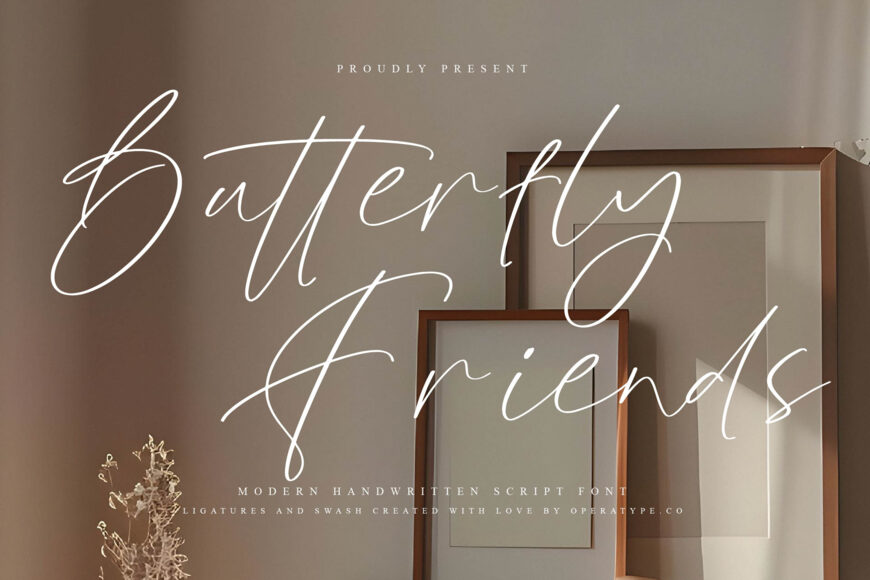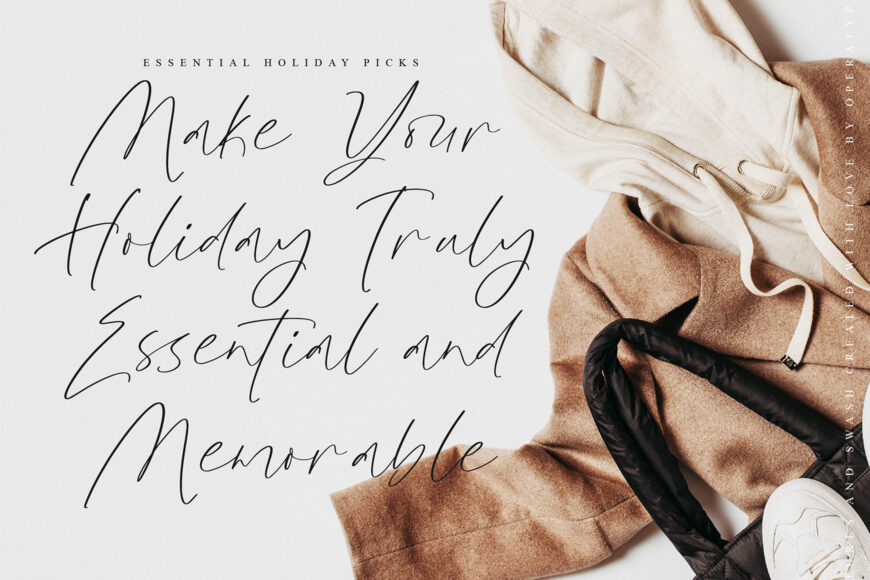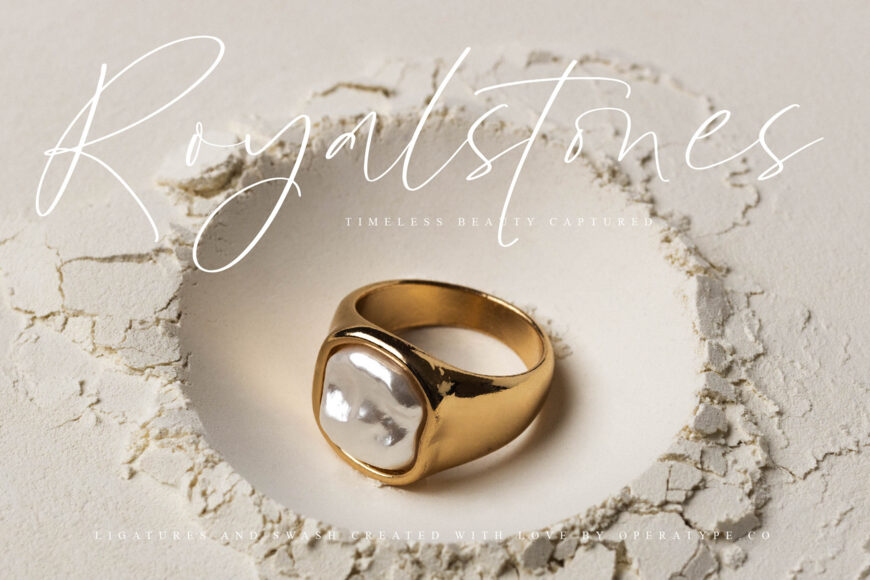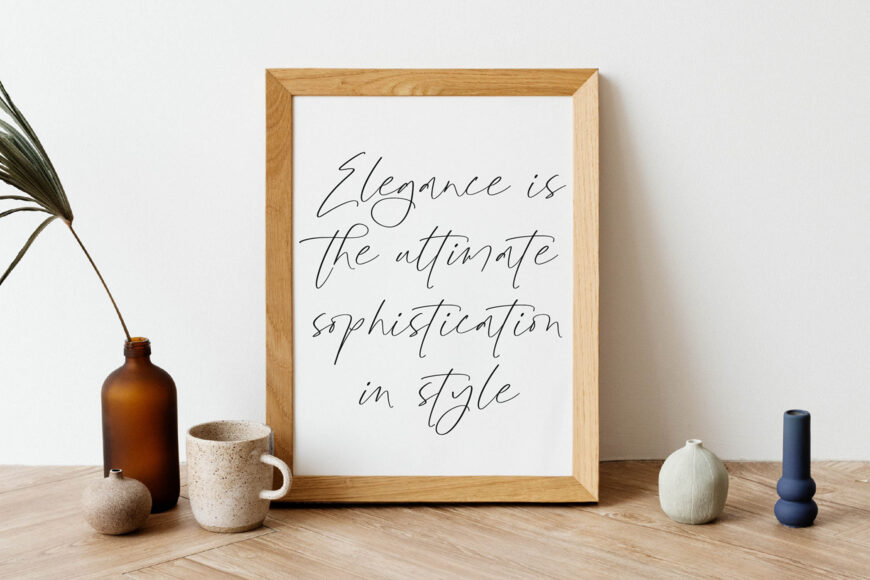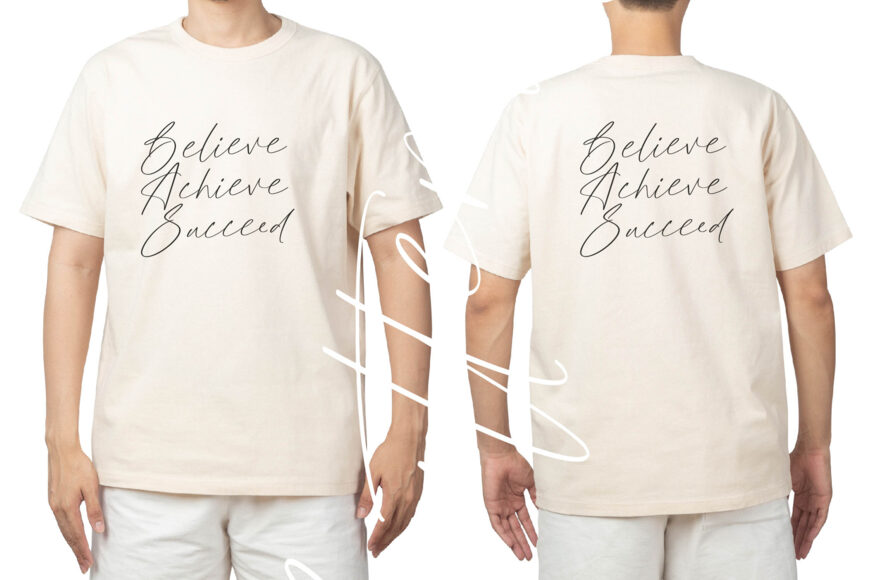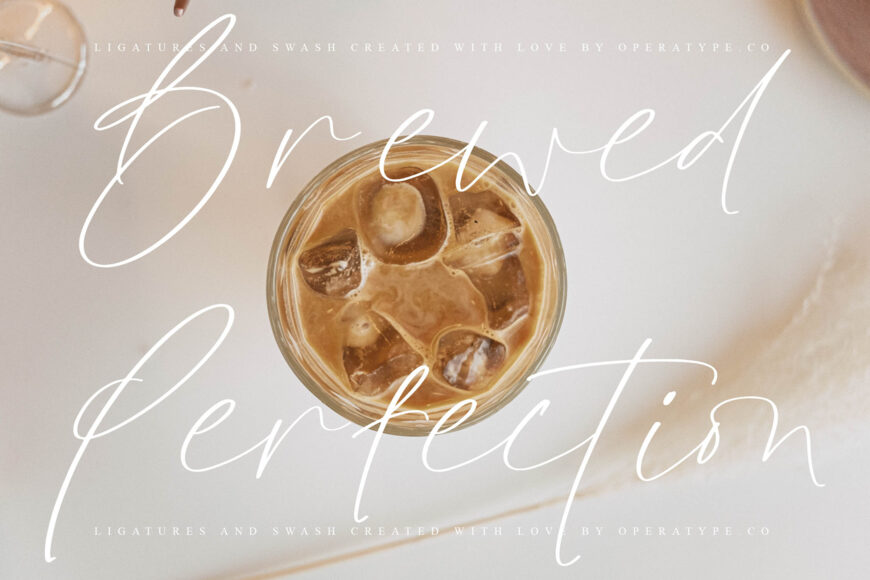
Butterfly Friends is a modern handwritten script font that combines delicate elegance with effortless simplicity. Inspired by natural handwriting and graceful pen strokes, this typeface features slender letterforms, smooth curves, and expressive swashes that create a light, airy, and sophisticated appearance.
Inspired by luxury signature lettering and minimalist handwritten aesthetics, Butterfly Friends delivers a refined handwritten personality that works beautifully across both print and digital applications.